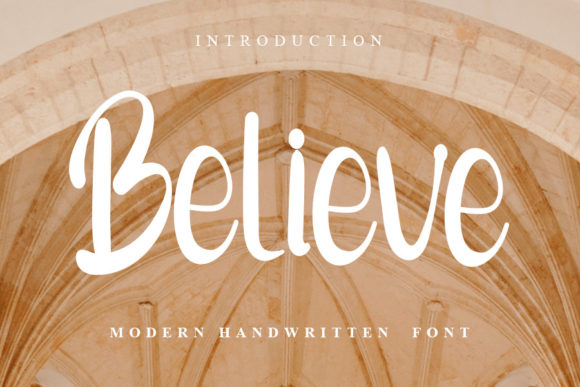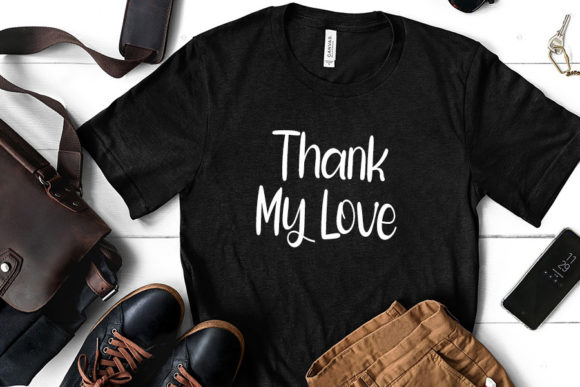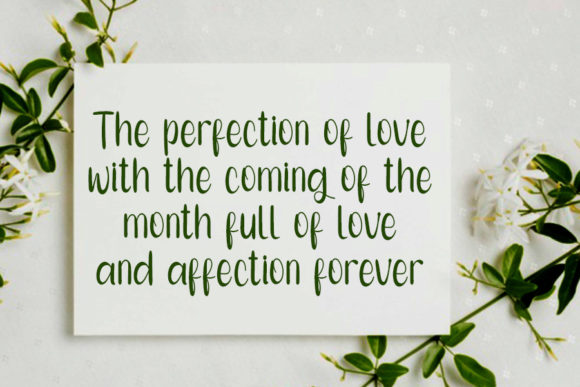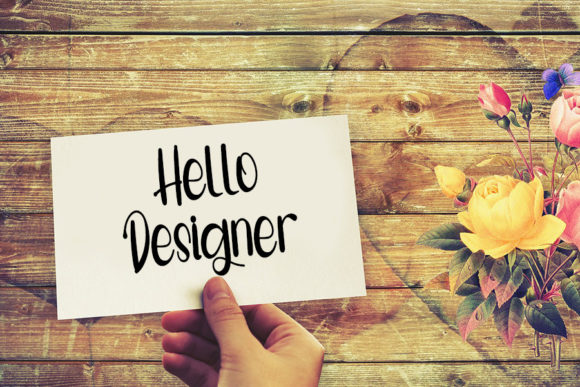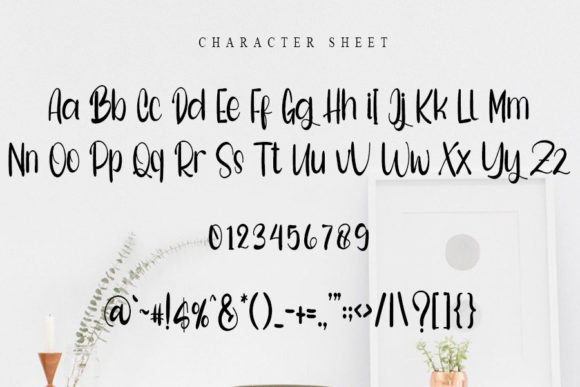
Believe Font
About Believe Font
Believe is a contemporary and friendly handwritten font that brings a personal touch to your designs. With its modern and versatile style, this font is perfect for a wide range of projects, from wedding invitations and thank you cards to logos and greeting cards.
One of the standout features of Believe is its natural and authentic look. The handwritten nature of the font adds a sense of warmth and approachability, making it ideal for designs that require a personalized and heartfelt touch. The characters flow smoothly and seamlessly, creating a harmonious and pleasing visual experience.
Believe shines in wedding-related designs, such as invitations and thank you cards. Its elegant yet casual style adds a touch of sophistication, setting the tone for a memorable and romantic celebration. The font captures the essence of love and joy, reflecting the special moments shared between couples and loved ones.
Greeting cards and personalized notes also benefit from the charm of Believe. Whether it’s a birthday card, a holiday greeting, or a simple message of appreciation, the font adds a personal and heartfelt touch. It conveys sincerity and warmth, making the recipient feel special and valued.
Logos and branding materials can also benefit from Believe’s unique style. Its friendly and approachable nature helps create a connection with the audience. The font’s versatility allows it to adapt to various industries and design aesthetics, adding a touch of personalization to your brand identity.
Believe is designed with readability in mind, ensuring that your message comes across clearly and effectively. The characters are carefully crafted to maintain legibility even at smaller sizes, ensuring that your text remains accessible and easy to read.
Whether you’re designing for print or digital platforms, Believe performs consistently and reliably. It maintains its visual appeal and legibility across different mediums, ensuring that your designs look polished and professional.
In summary, Believe is a modern and friendly handwritten font that adds a personal and heartfelt touch to your designs. Its versatility makes it suitable for a wide range of projects, including wedding invitations, thank you cards, logos, and greeting cards. With its authentic and approachable style, Believe helps create connections and leaves a lasting impression on your audience.